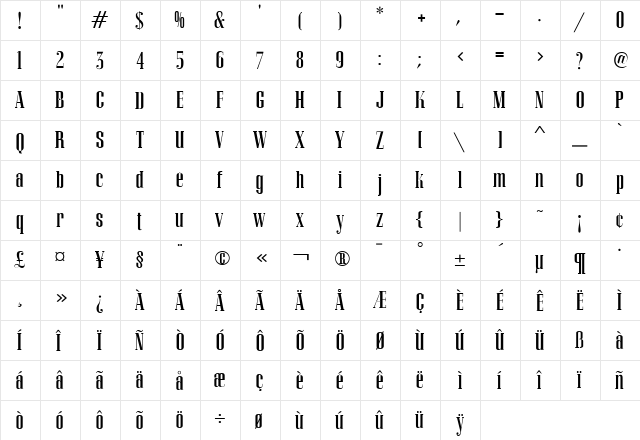
APCorvinusSkyline Regular
Design Context for APCorvinusSkyline Typeface
APCorvinusSkyline offers clean, dependable letterforms without strong stylistic allegiance, making it a practical choice for designers who need flexibility.
Pro Tip: Use APCorvinusSkyline in both headline and body roles to test its range before committing to a single application.